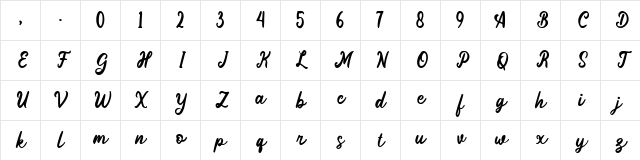
Barsime Regular Free Font
Barsime Regular
Foundry: Forberas Club
Designer: Forberas
Design Context for Barsime
Barsime is a composed and adaptable typeface that performs quietly and consistently across a wide range of design contexts.